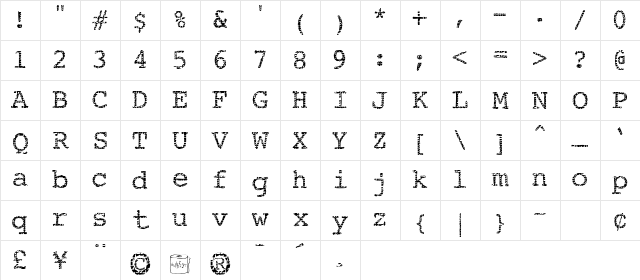
Buttzilla Regular
Design Context for Buttzilla
Buttzilla is a composed and adaptable typeface that performs quietly and consistently across a wide range of design contexts.